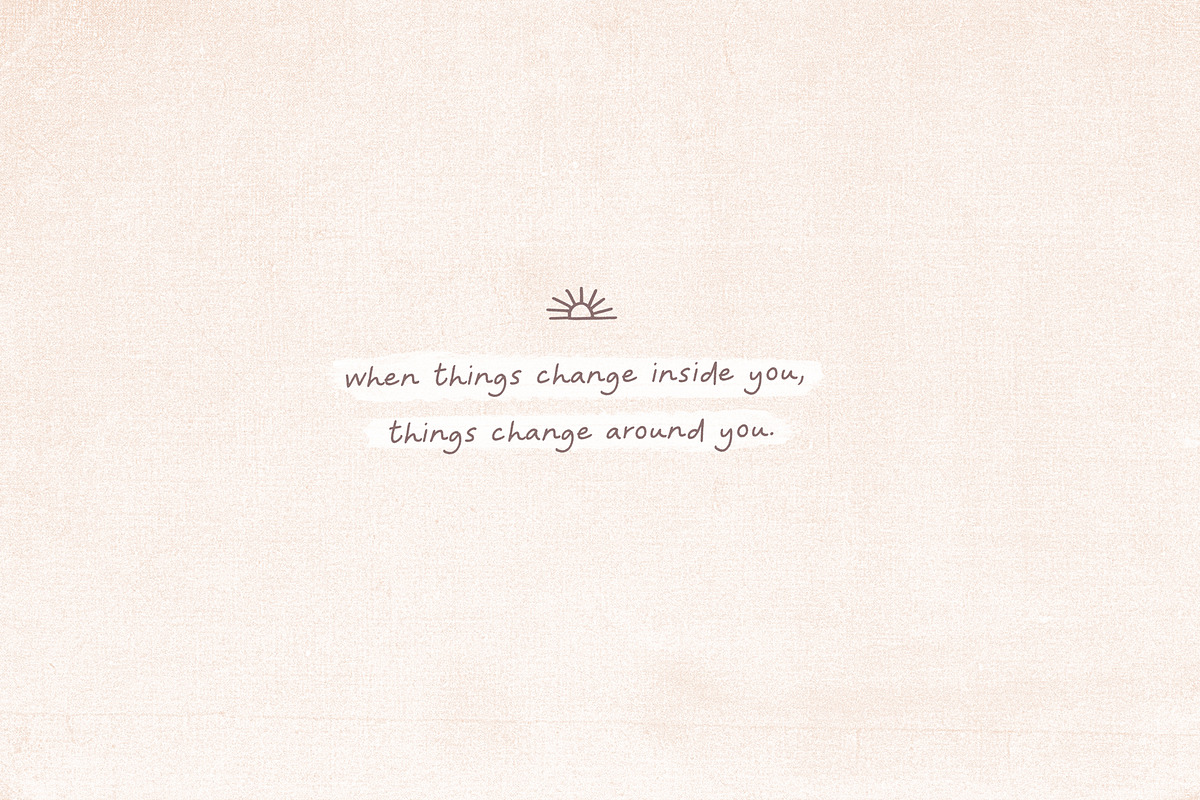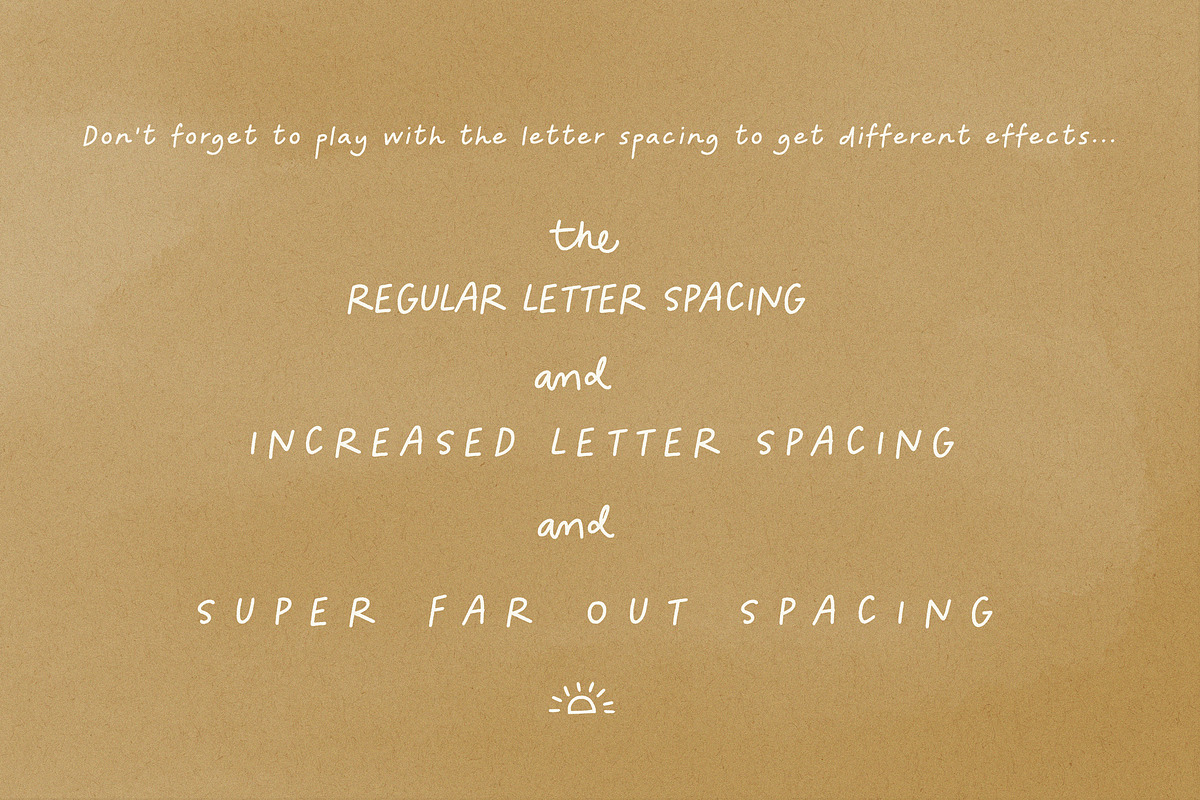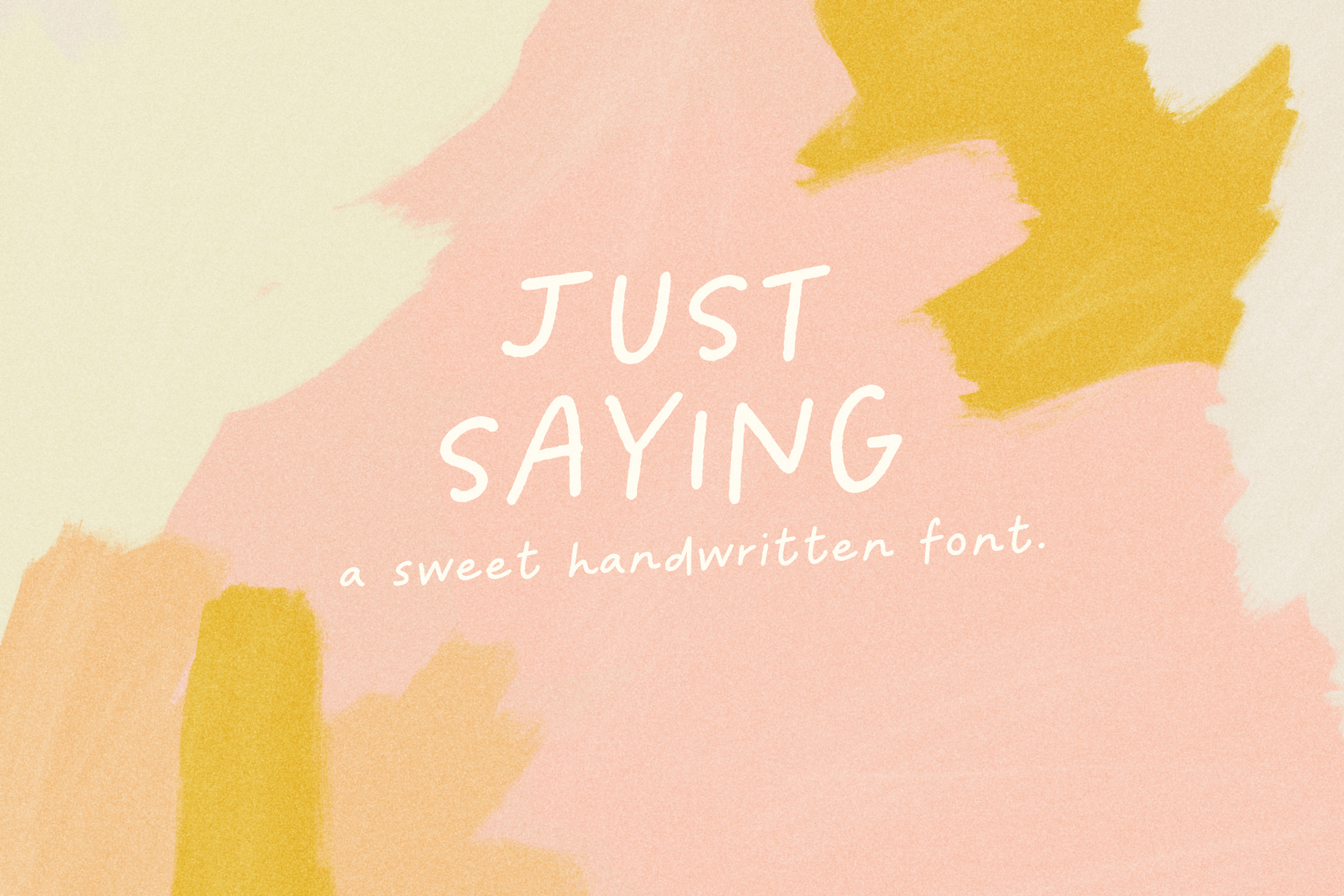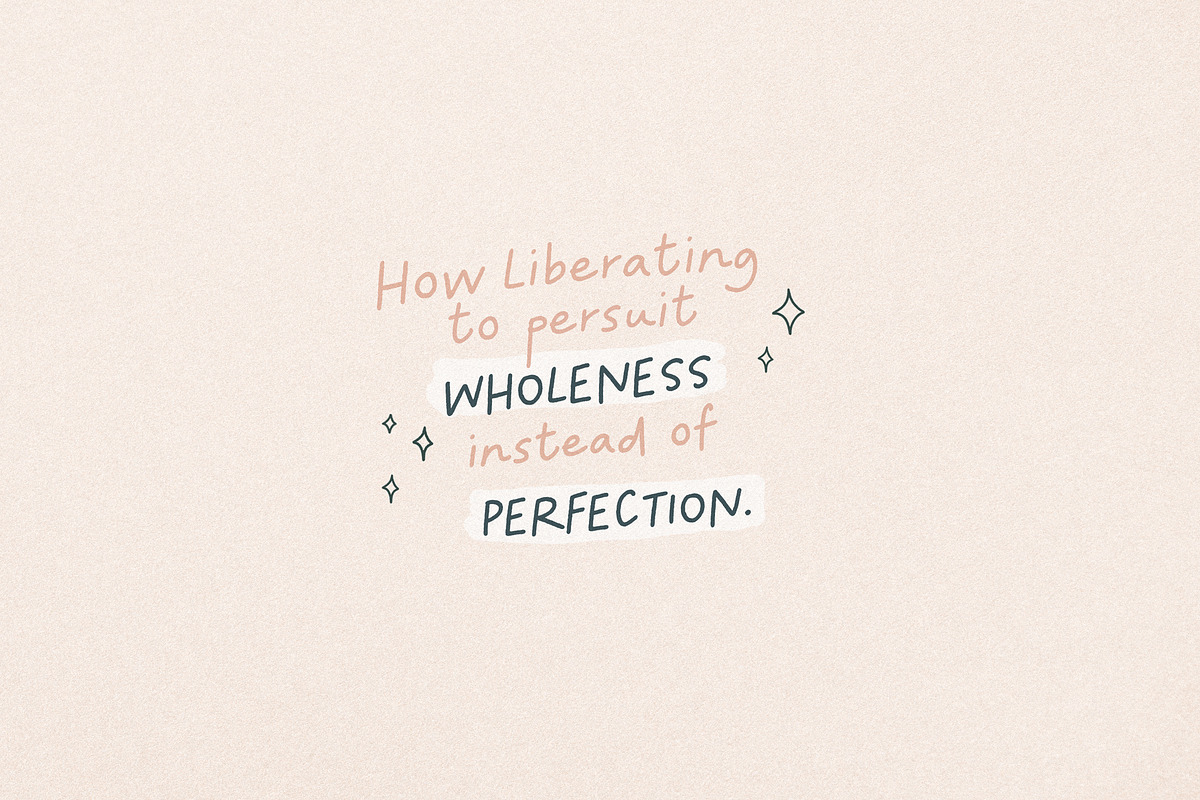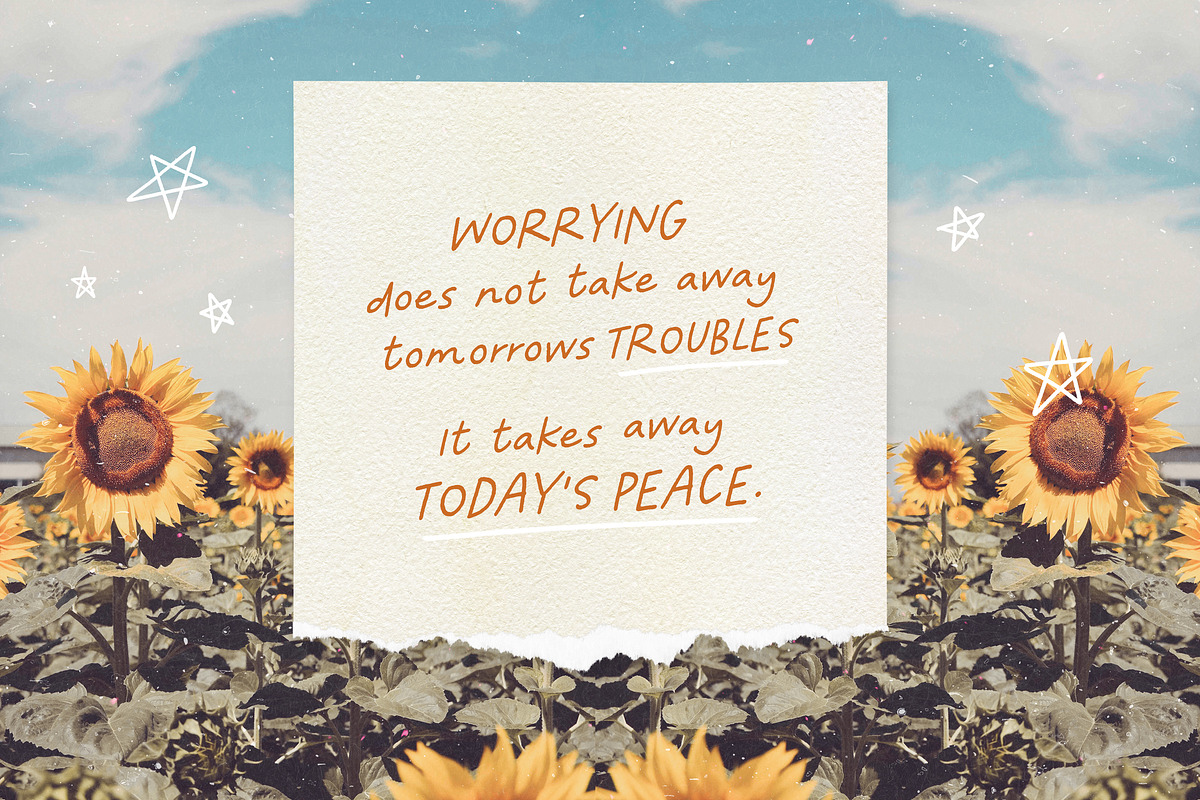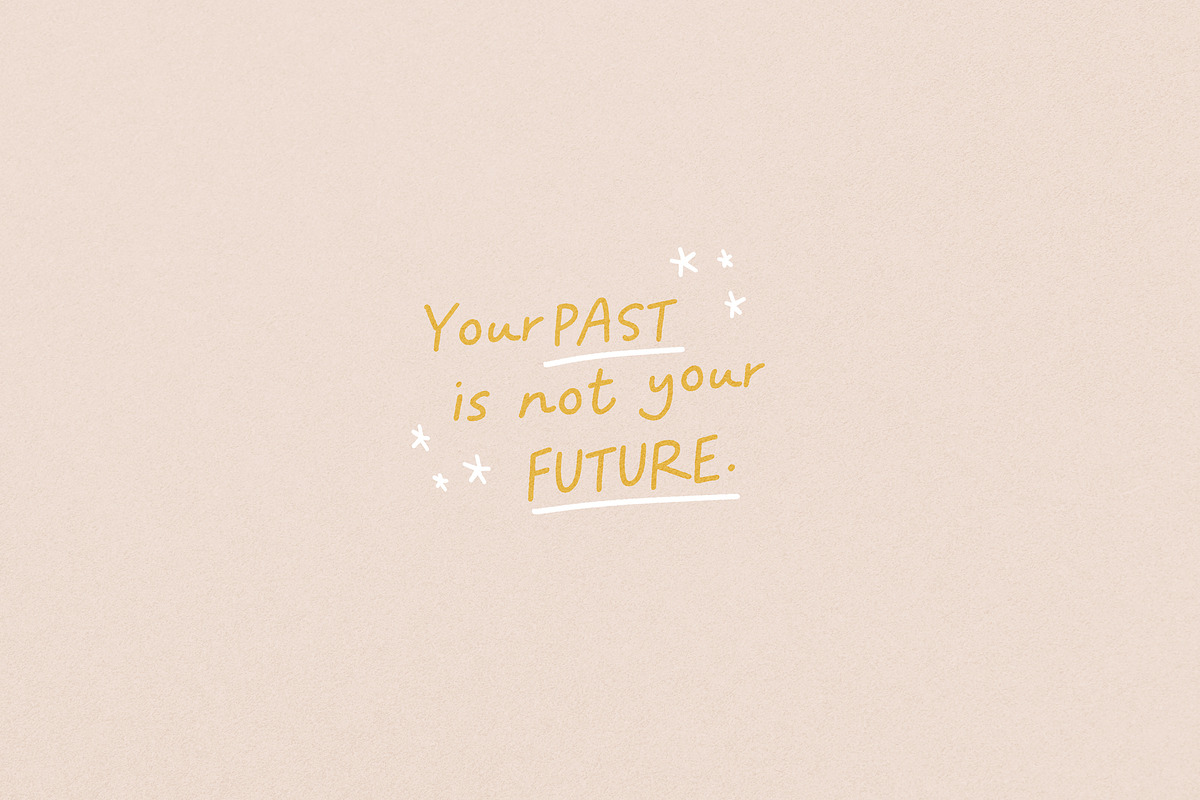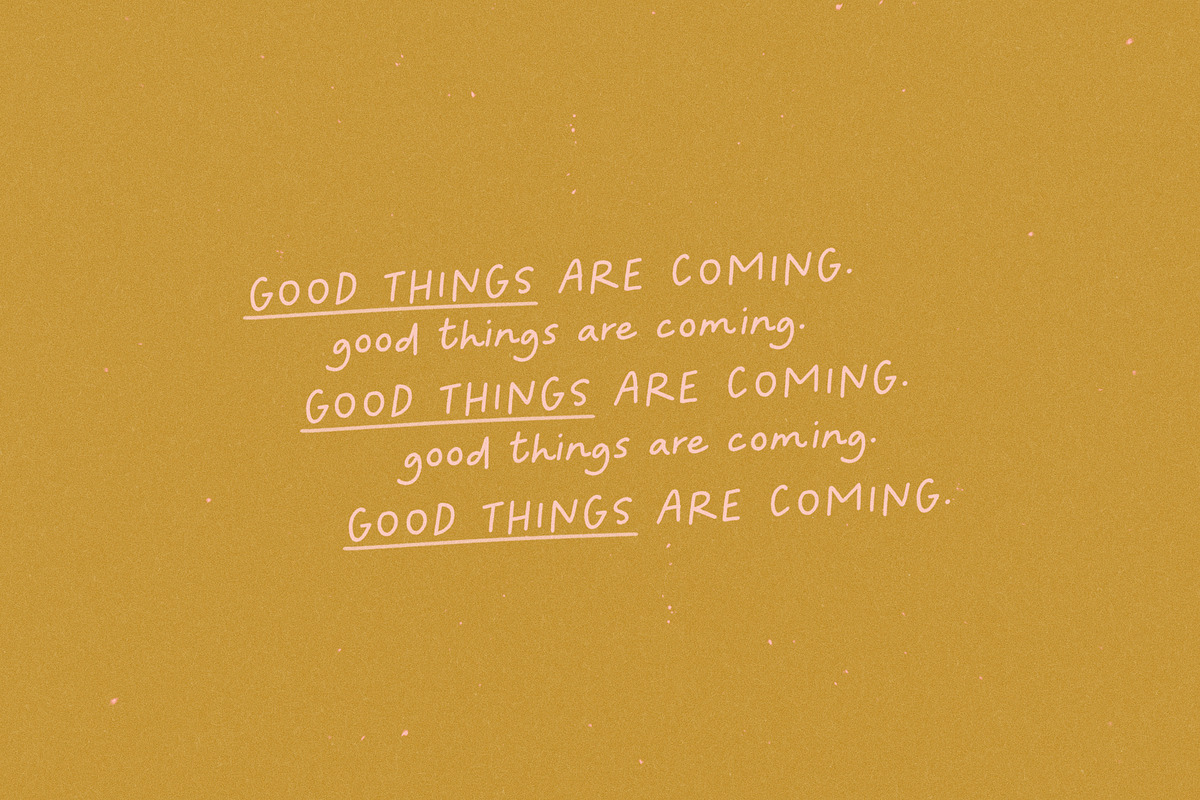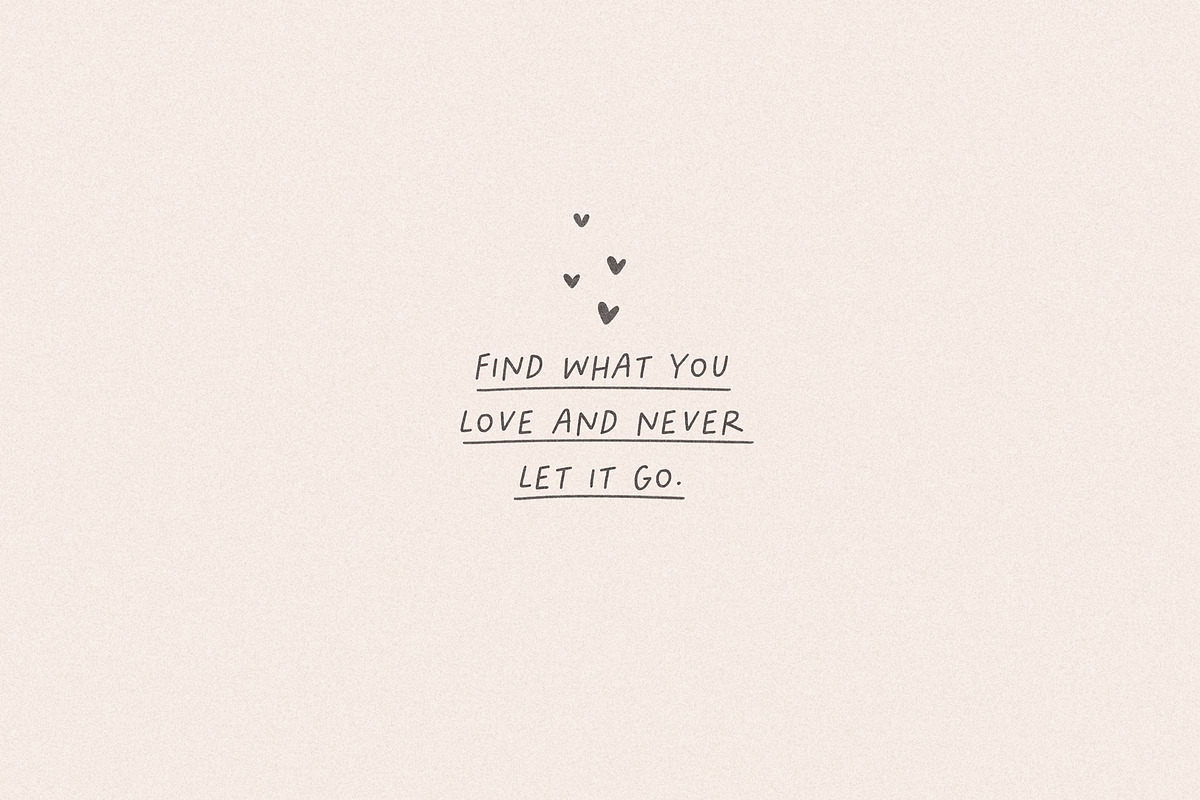
Just Saying Handwritten Font
Say hello to 'Just Saying' - a sweet little handwritten font and dingbats, ready to brighten someone's day :) In the pack you will also find a ' Just Saying Dingbats' font - jam packed with sweet little doodles that make your type design sparkle a little more :)
The font comes in 6 variants - varying in weight and slant - pick the ones that fits your project best:)
Play with letter spacing to get different looks!
Perfect for stellar quotes, handwritten notes, sweet greeting cards, and of course stand-out branding.
So addictive to play with - I'm sure you'll love it too....Just saying :P